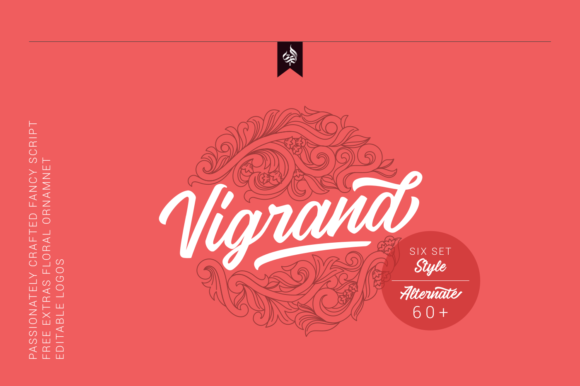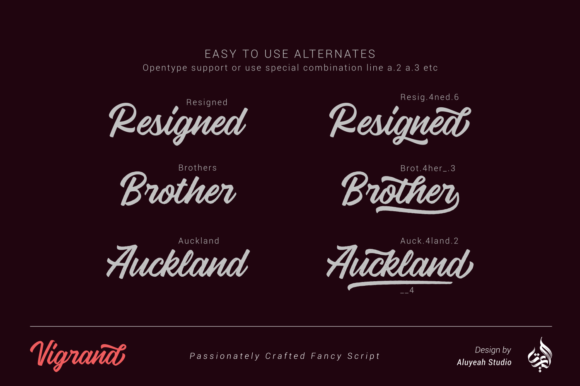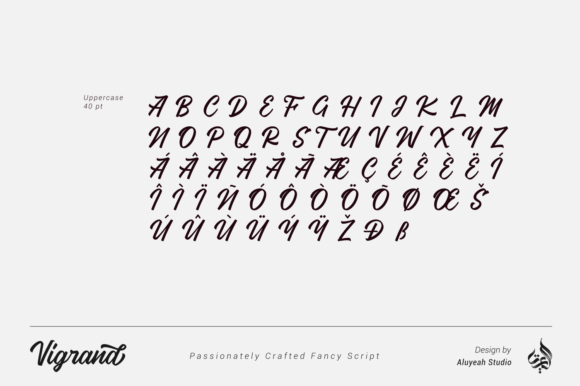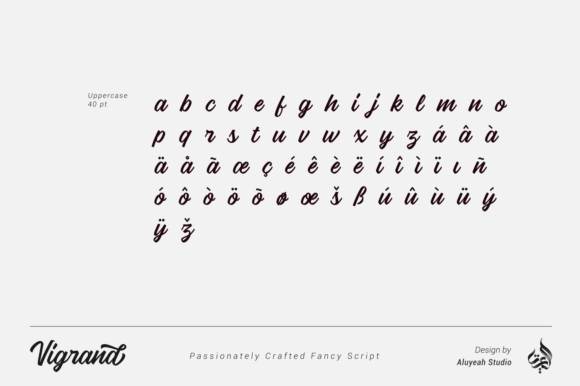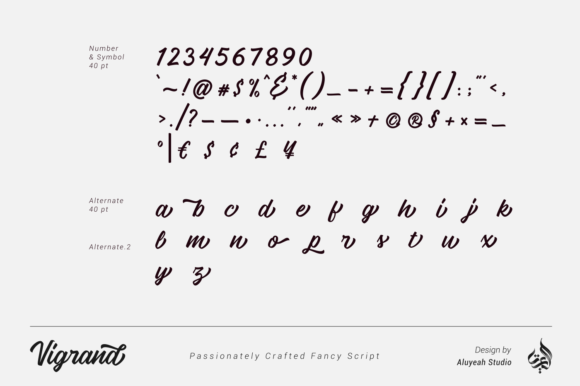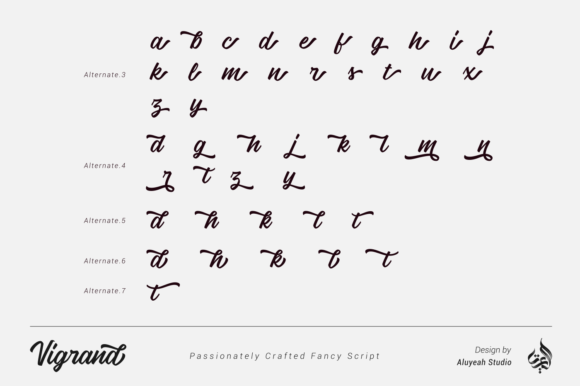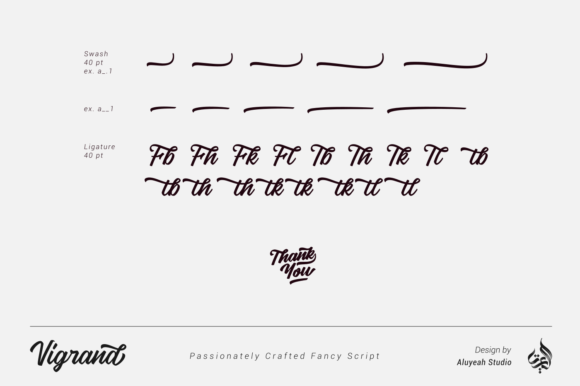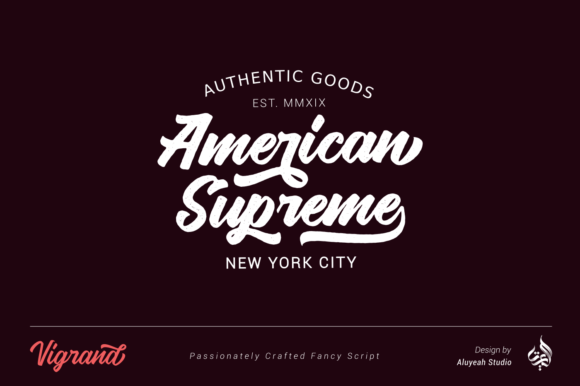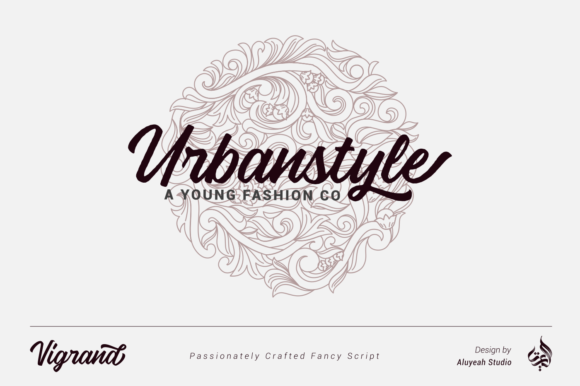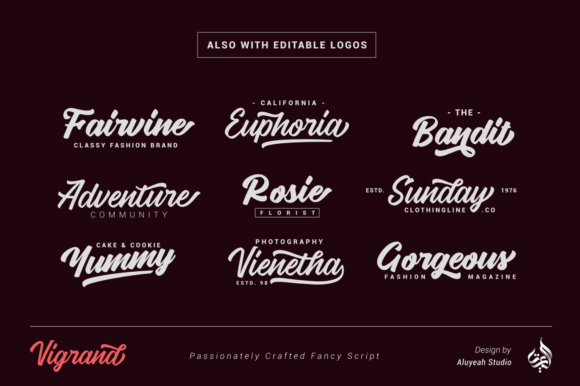
HomeScript FontsVigrand Font Script Fonts Vigrand Font FacebookXPinterestWhatsApp Vigrand Font Poster 2 Vigrand Font Poster 3 Vigrand Font Poster 4 Vigrand Font Poster 5 Vigrand Font Poster 6 Vigrand Font Poster 7 Vigrand Font Poster 8 Vigrand Font Poster 9 Vigrand Font Poster 10 Vigrand Font Poster 11 Vigrand Font Poster 12 Vigrand Font Poster 13 Vigrand Font Poster 14 Vigrand Font Poster 15 About Vigrand Font Vigrand is a friendly and fun script with an authentic vibe. Get inspired by its timeless style. DOWNLOAD NOW People also explored Tofersium Sofar Font Beauty Hands Font Face Your Fears II Pointe Pamson Font Teugladish Font Creative Vintage Font Auspicious Font Linnea Font 298 0 TagsVigrand Font Previous articleEpic Hello FontNext articleFribourg Font LEAVE A REPLY Cancel reply Comment: Please enter your comment! Name:* Please enter your name here Email:* You have entered an incorrect email address! Please enter your email address here Website: Save my name, email, and website in this browser for the next time I comment. Personal Use Free Vivacious Personal Use Free Read more about this font Gupis Personal Use Free Read more about this font Dacquoise Personal Use Free Read more about this font Masker Area Personal Use Free Read more about this font BLOG How to Cut Any Font on Cricut: Convert a Font to SVG (Free) Turn any font into a clean SVG so it cuts crisp on Cricut - a quick 3-step workflow using a free font-to-SVG tool. Modern Sans-Serif Fonts That Brands Love in 2025 Best Fonts for YouTube Videos: Make Your Thumbnails Stand Out The 10 Best Handwriting Fonts to Add Personality to Your Designs